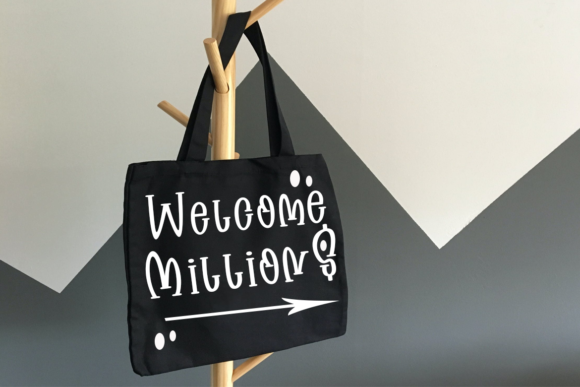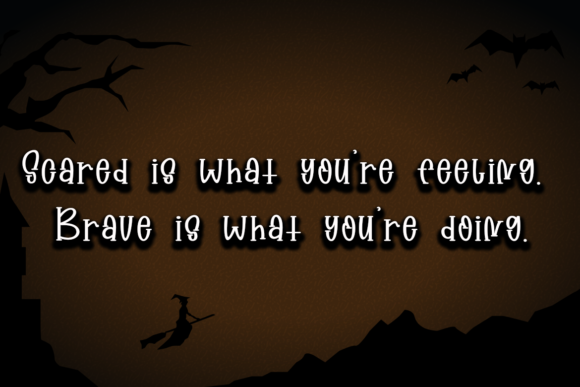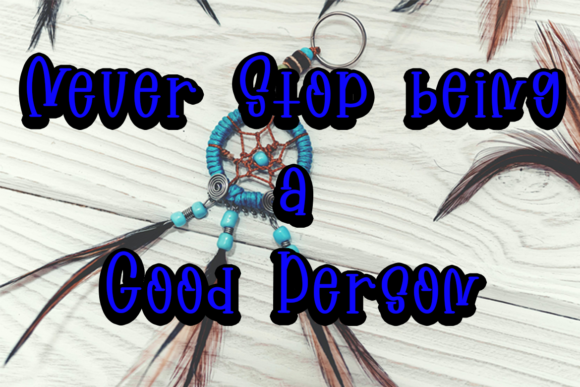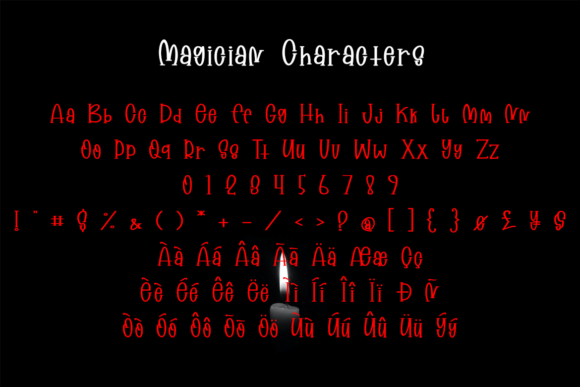
About Magician Font
Introducing “Magician,” a beautiful display font that brings a touch of magic and joy to your designs. Its stunning beauty makes it a perfect fit for a variety of design projects, adding a dose of enchantment to every creation. Whether you’re working on posters, invitations, logos, or any other design, “Magician” will infuse your creations with a joyful and captivating aura.
With “Magician,” you have a font that carries an air of whimsy and charm. Its unique and stylish display style adds a touch of magic to your visuals, creating a delightful visual experience. Whether you’re crafting event materials, branding, or creative graphics, this font adds an element of delight that leaves a lasting impression.
The allure of “Magician” lies in its ability to inject joy and vibrancy into various design contexts. Its joyful and captivating appeal makes it suitable for a wide range of projects, making it the perfect choice for all your creative ideas.
Unleash your creativity and watch how “Magician” enhances your designs with its beautiful and joyful touch. Whether you’re designing eye-catching headlines, creating magical logos, or crafting imaginative posters, this font will bring a sense of wonder and appeal that captivates your audience.
So, embrace the magic of “Magician” and let it become your creative ally. Allow its joyful and unique style to inspire your designs, turning them into standout works of art. Whether you’re a seasoned designer or a passionate enthusiast, “Magician” empowers you to create visuals that stand out and make a statement. Let “Magician” be the key to unlocking the enchantment and joy in your designs, and watch as it takes your projects to new levels of creativity and delight!